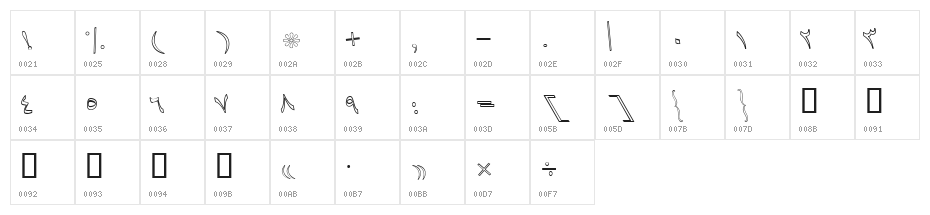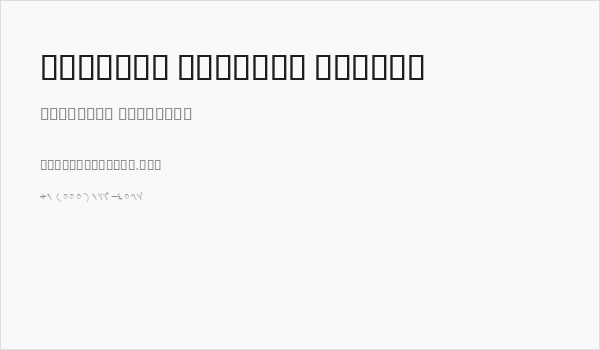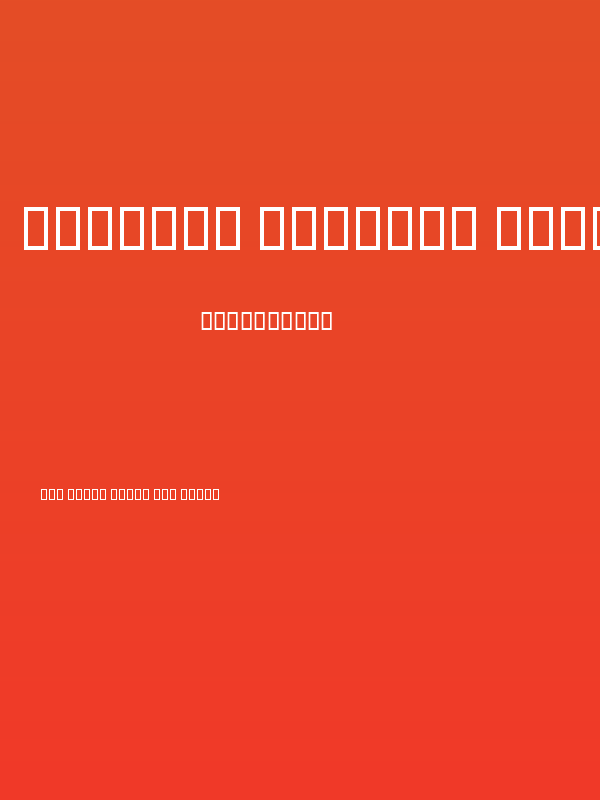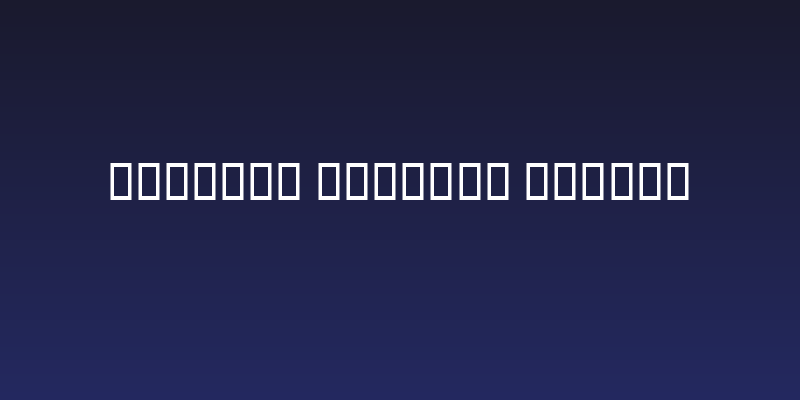
Baaraan Outline Italic Font
Baaraan Outline Italic Description
This font features an outline style with a distinct italic slant, giving it a dynamic and modern appearance. The characters are designed with a consistent stroke width, creating a uniform look across all letters and numbers. The uppercase and lowercase letters maintain a cohesive style, while the numerals and special characters complement the overall design. The font's outline nature makes it ideal for creating eye-catching headlines and titles, as it stands out against various backgrounds. Its unique style can add a creative touch to any design project, making it suitable for branding, posters, and digital art.
گالری فانت فارسی پژوهش آريانا - only compatible with Farsi and Arabic